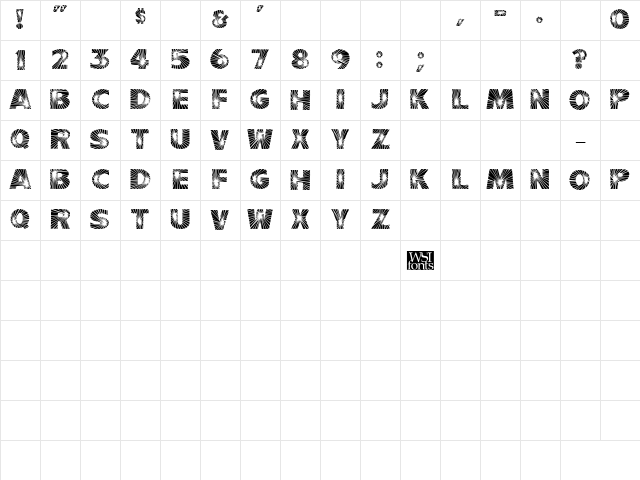
Starburst Regular Free Font
Starburst Regular
Design Context for Starburst
Starburst is a composed and adaptable typeface that performs quietly and consistently across a wide range of design contexts.